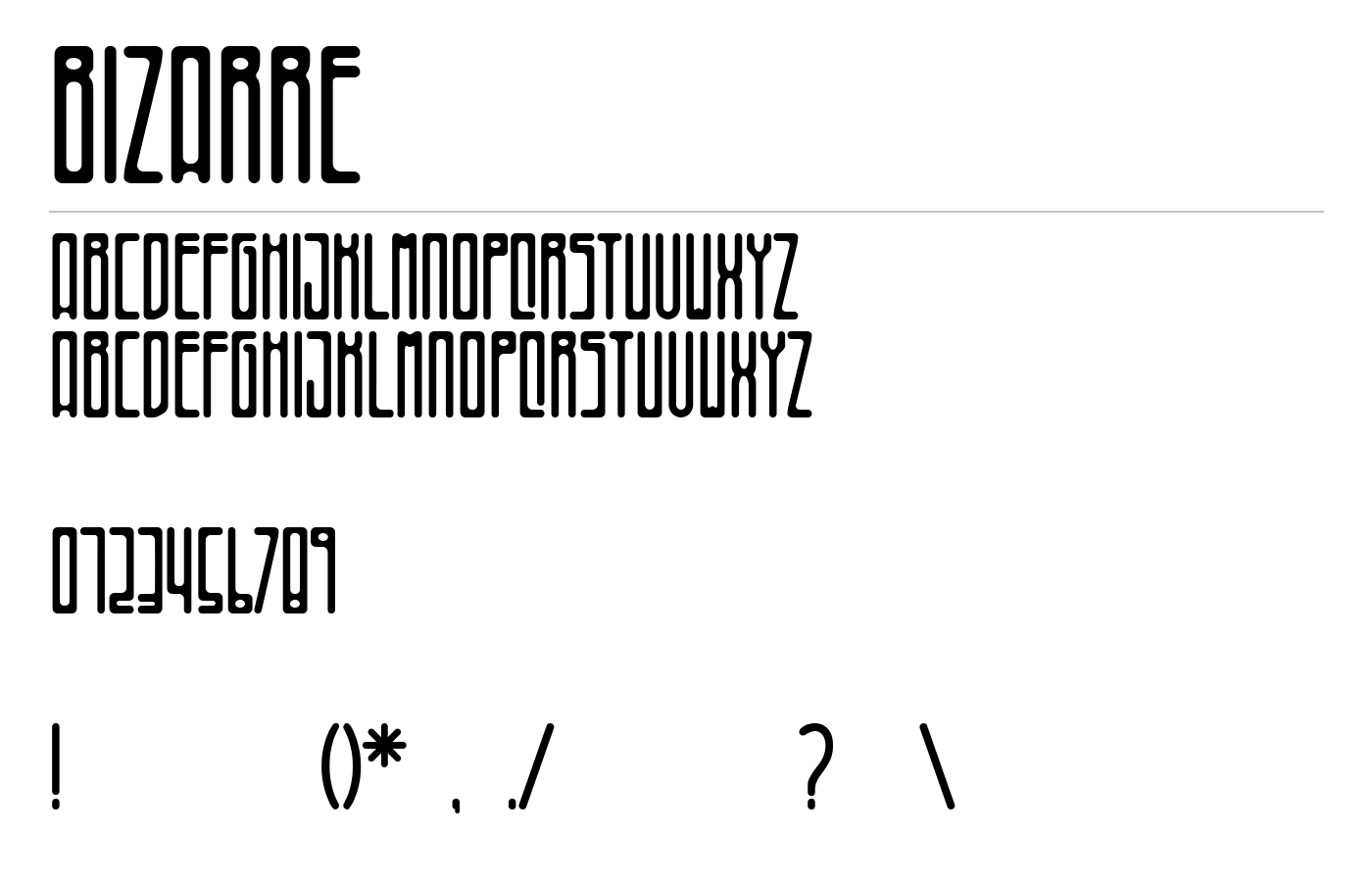
Bizarre Font is a condensed, modern sans serif with a tall x-height and sleek, uniform stroke weight that creates a clean, minimalist look. Its geometric, rounded edges give it a futuristic and slightly playful personality, making it ideal for eye-catching headlines, logos, and tech or fashion branding. This font works well where an unconventional yet elegant style is needed to stand out in creative and contemporary design projects.
Bizarre Font
About Bizarre Font